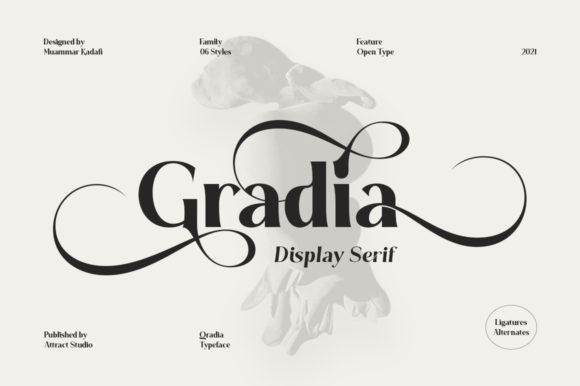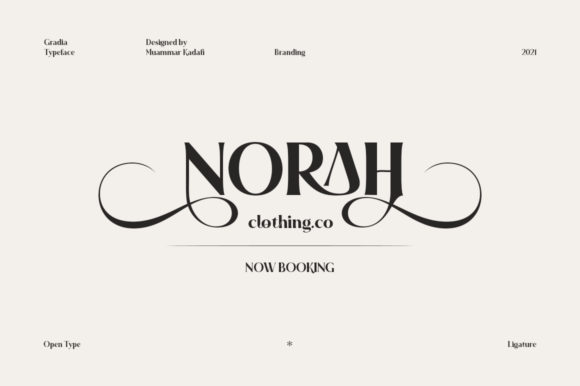
Gradia Font
Gradia is a slab serif font in the form of a unique and elegant typographic design. It is suitable for many design projects, from invitation cards to magazines, logos, branding, signage, and many others!